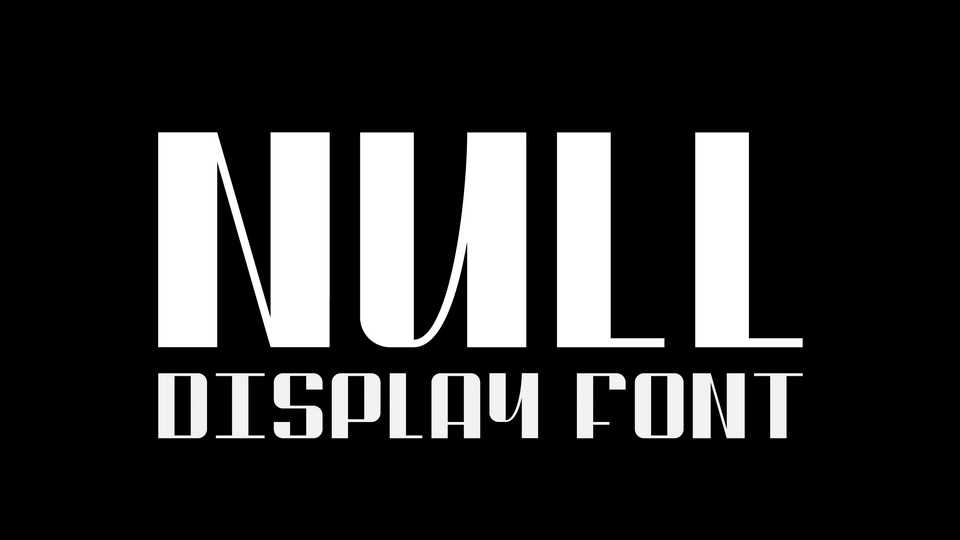
Download Null font, an experimental sans serif typeface that creates heavy contrast between vertical and horizontal stems. Null font is suitable for large titles, short messages, logos or typographic compositions.